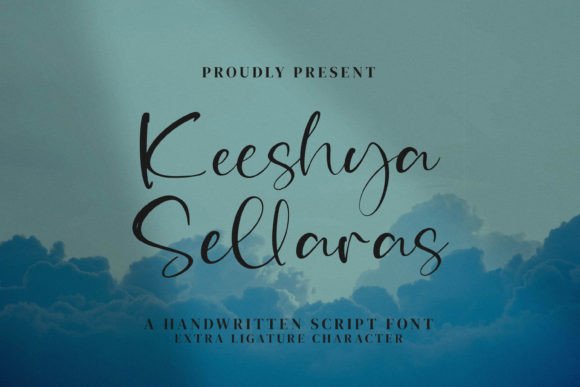
Journey into the realm of captivating typography with Keeshya Sellaras Font, a script font family that exudes charm and playfulness. Its whimsical strokes and quirky letterforms bring a touch of magic to every design.
Keeshya Sellaras is not just another font; it's a gateway to creativity, a passport to a world where your words dance with delight. With its unique and enchanting style, this font transforms the ordinary into the extraordinary.
Picture your designs adorned with the beauty of Keeshya Sellaras. Its elegant curves and playful loops add a touch of whimsy to logos, branding, and social media posts. It's the perfect font for creating eye-catching headlines, enchanting invitations, and heartfelt messages that resonate with your audience.
Keeshya Sellaras is more than just a font; it's an expression of your individuality, a reflection of your creative spirit. Its versatility allows you to effortlessly add a touch of charm to any project, from playful posters to heartwarming greeting cards. Its unique P-letterform adds a touch of intrigue and personality.
With Keeshya Sellaras, you're not just downloading a font; you're acquiring a magical tool that empowers you to create designs that captivate and inspire. Its charm will leave a lasting impression, enchanting your audience and leaving them eager for more.
So, take the plunge and embrace the magic of Keeshya Sellaras. Let your creativity soar and watch as your designs transform into works of art. Experience the joy of creating with a font that's as unique and enchanting as you are.